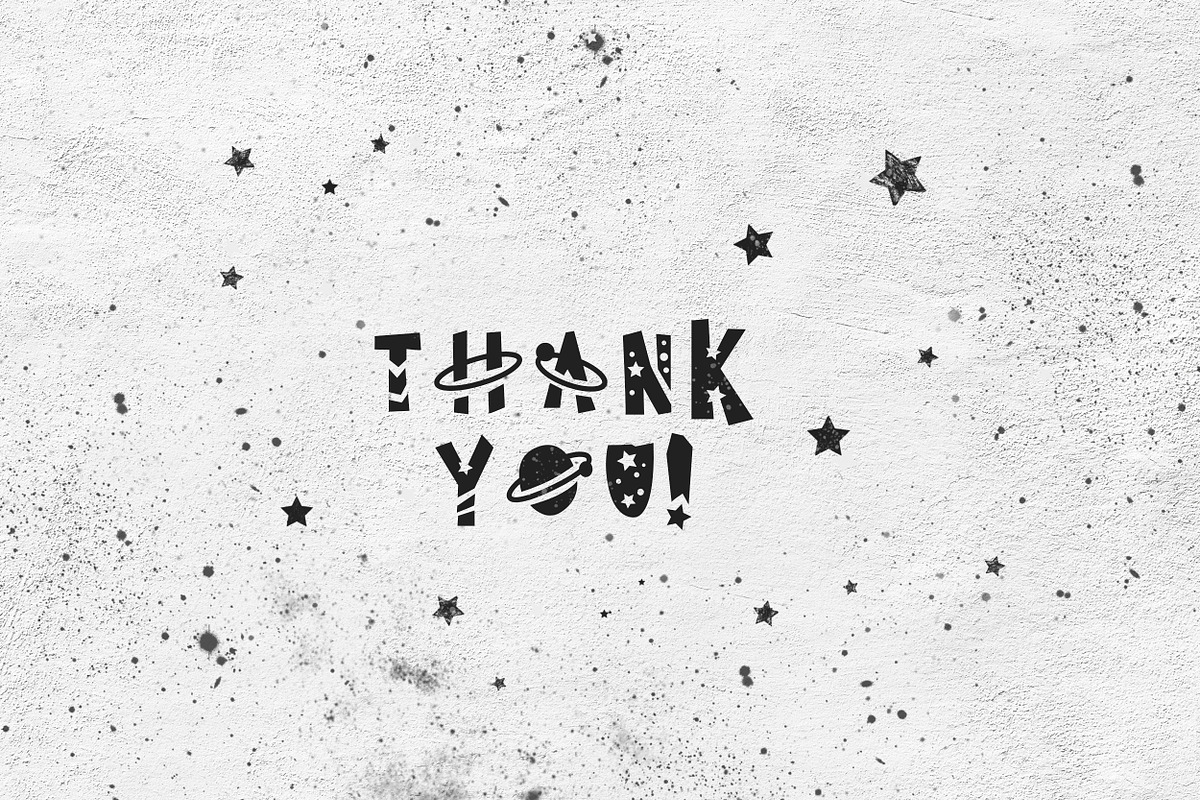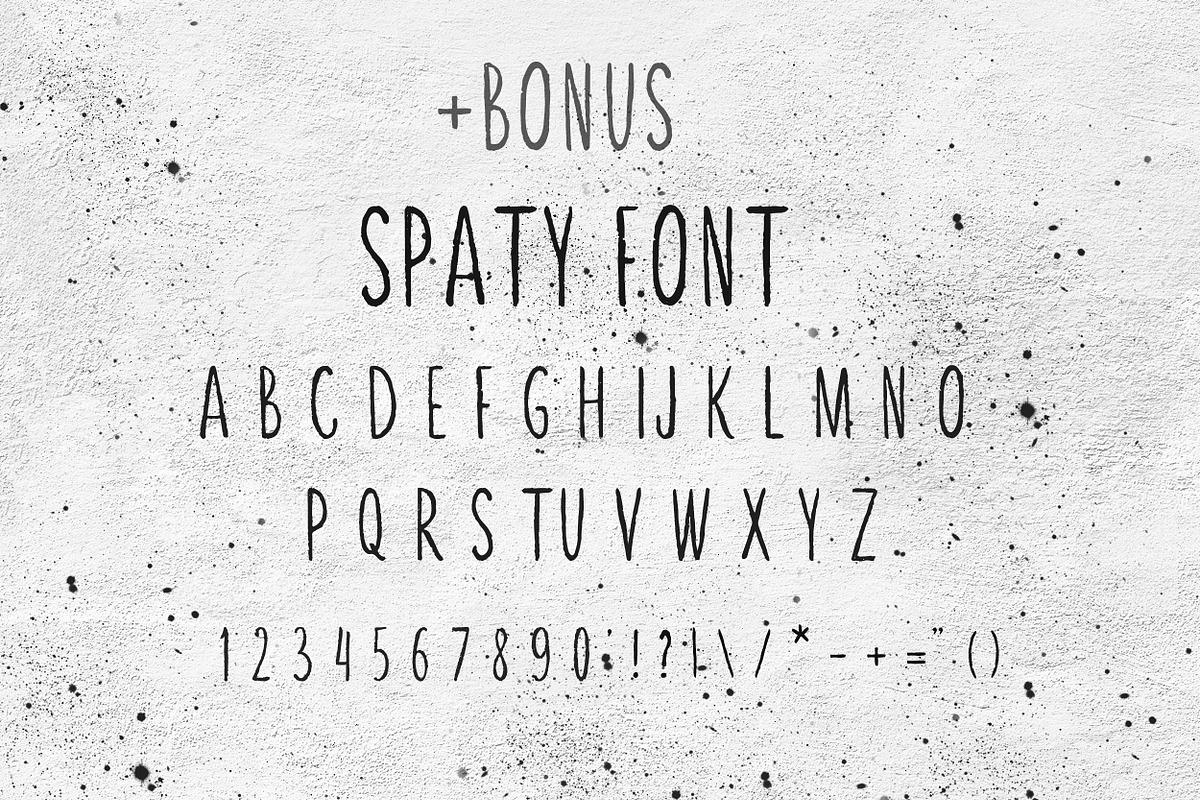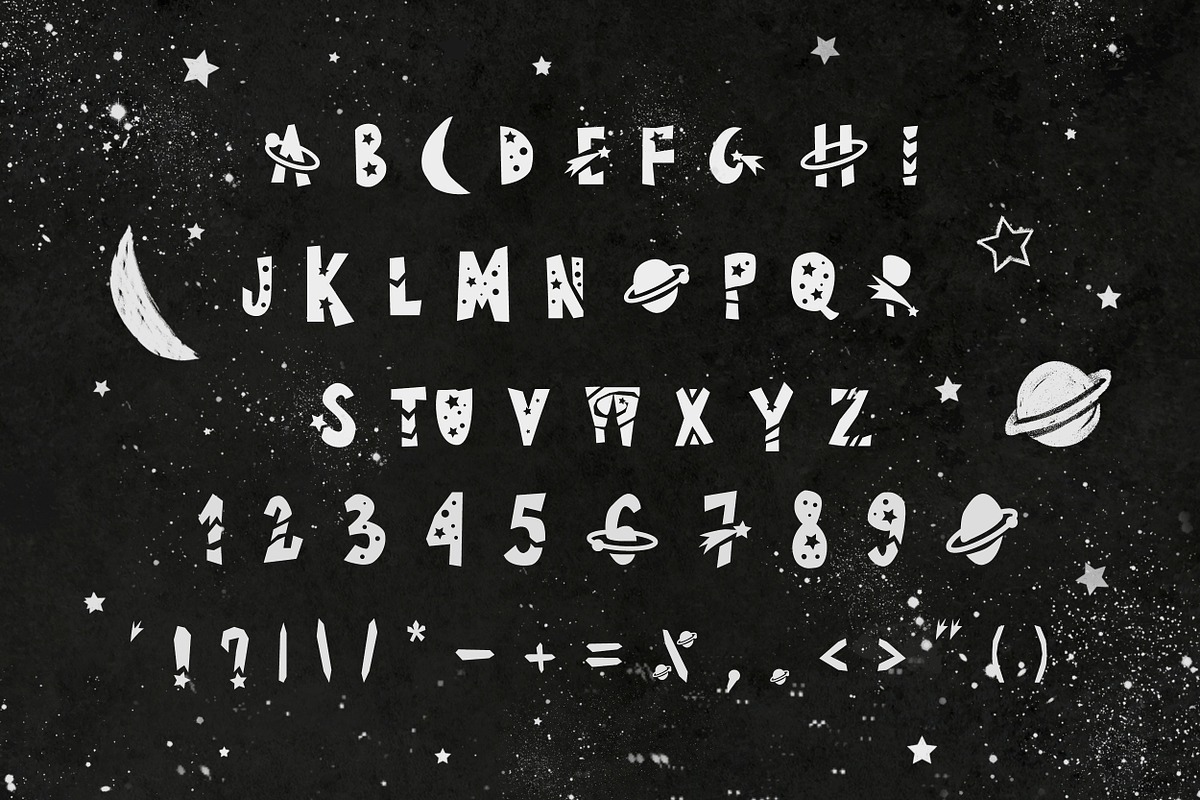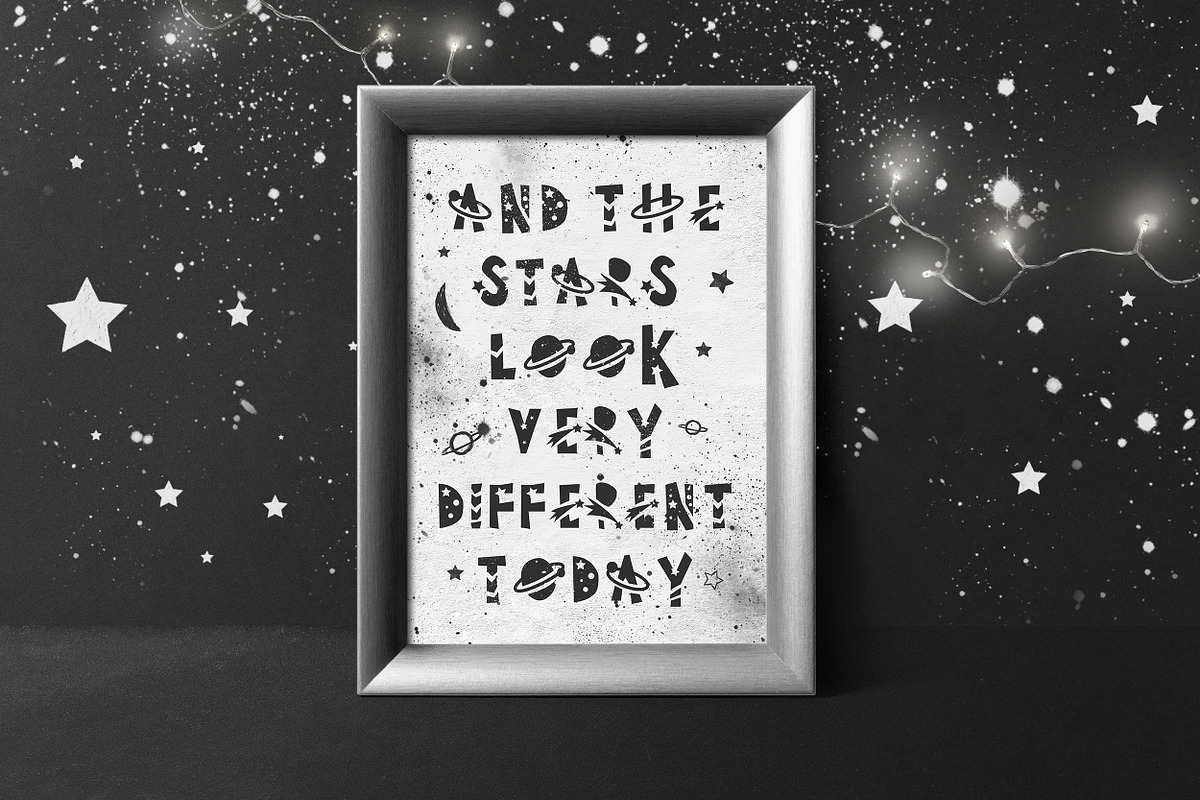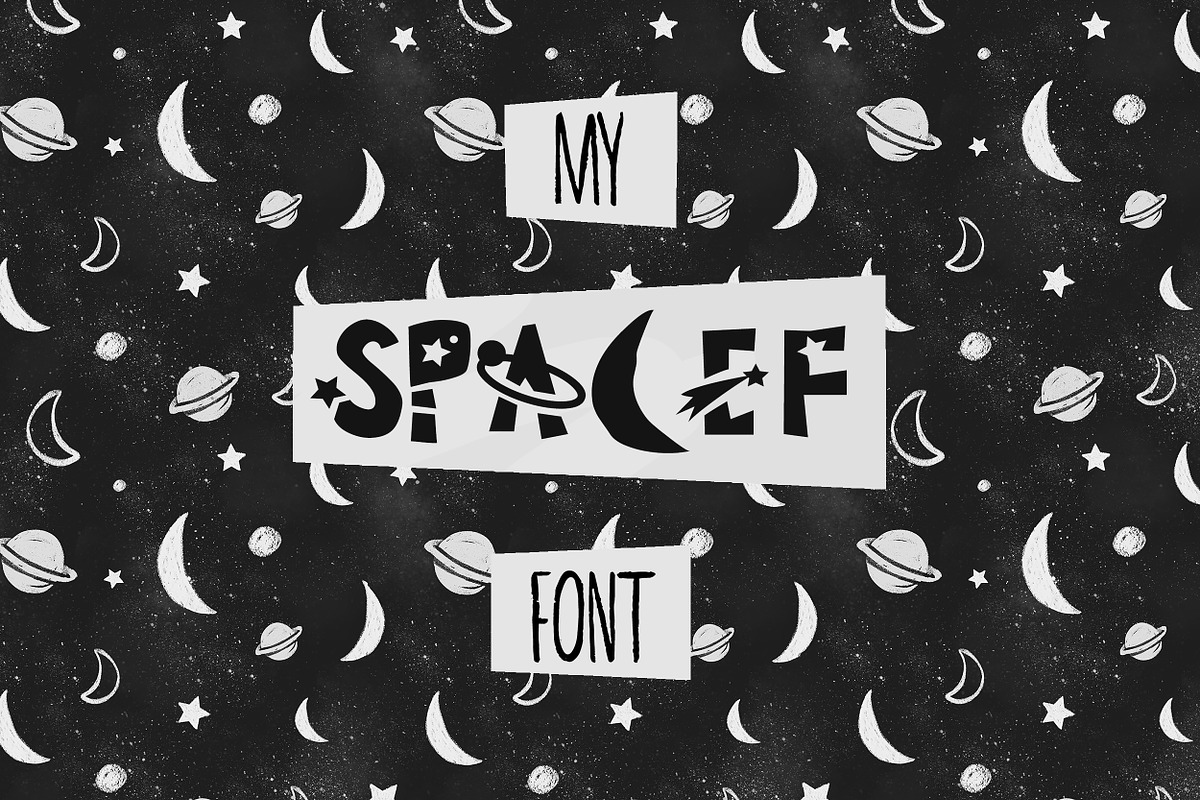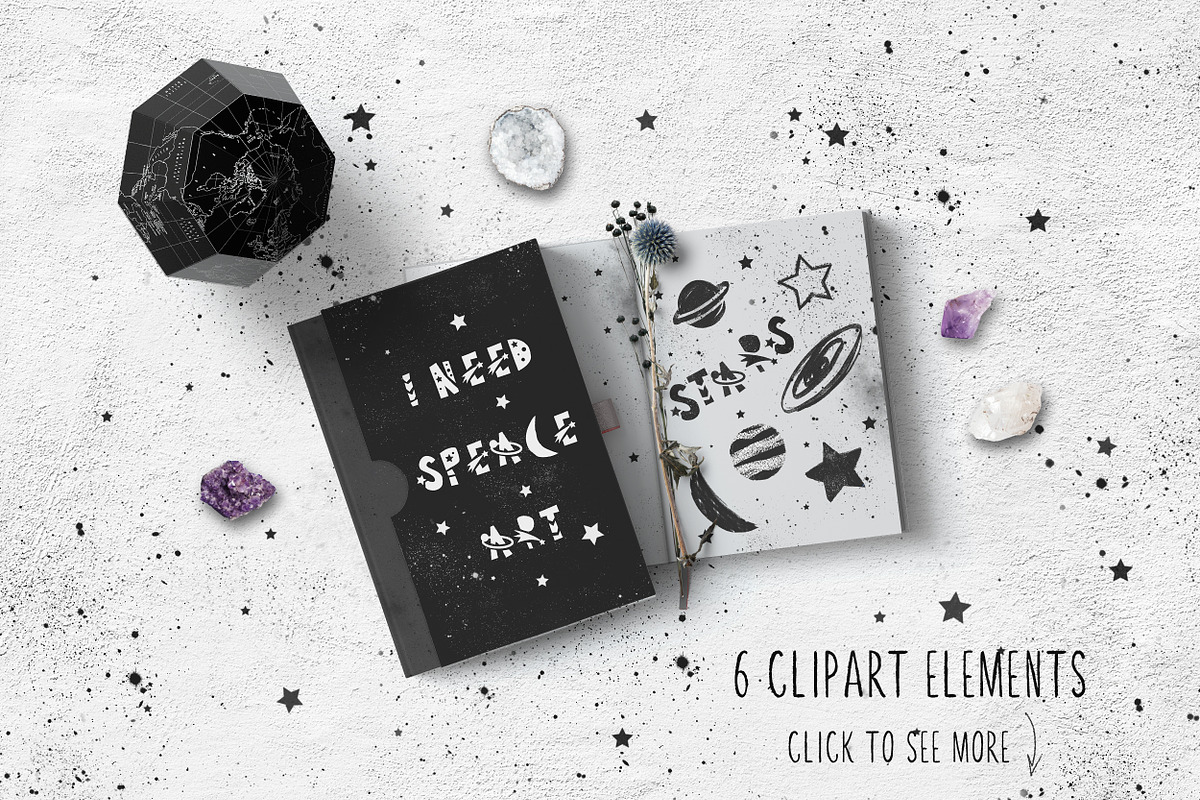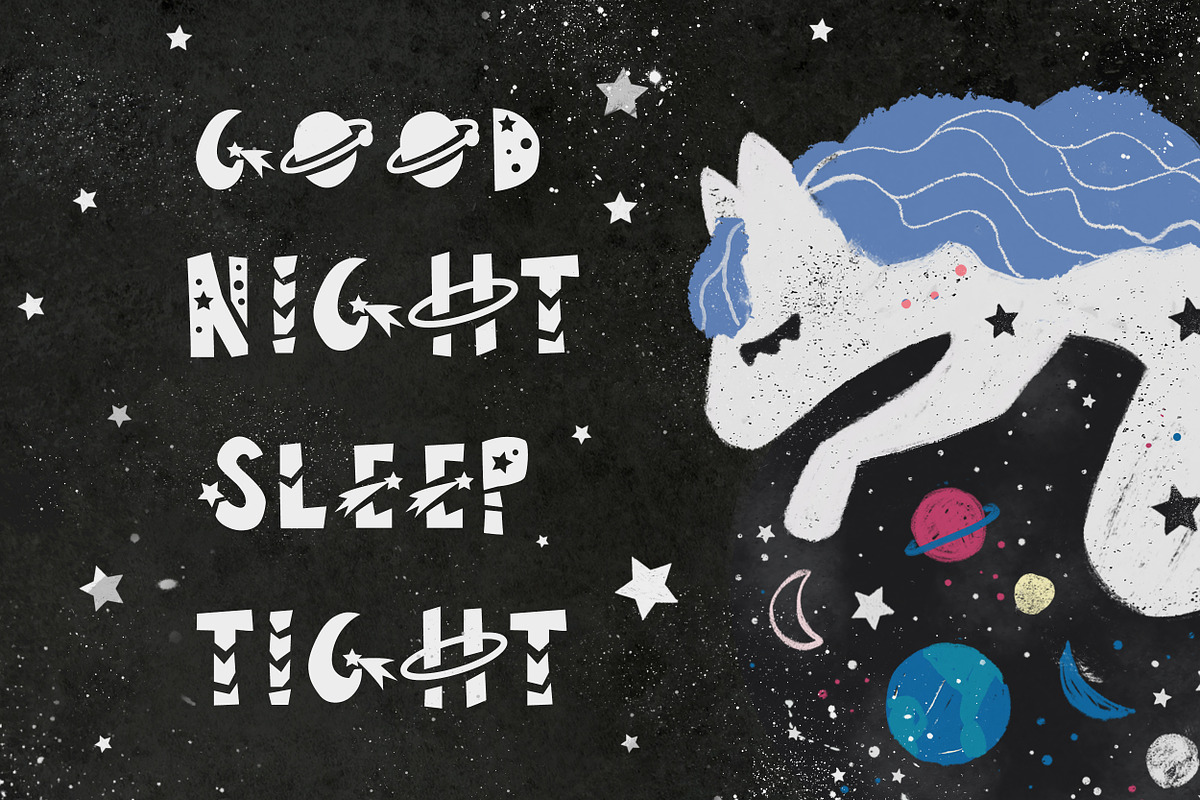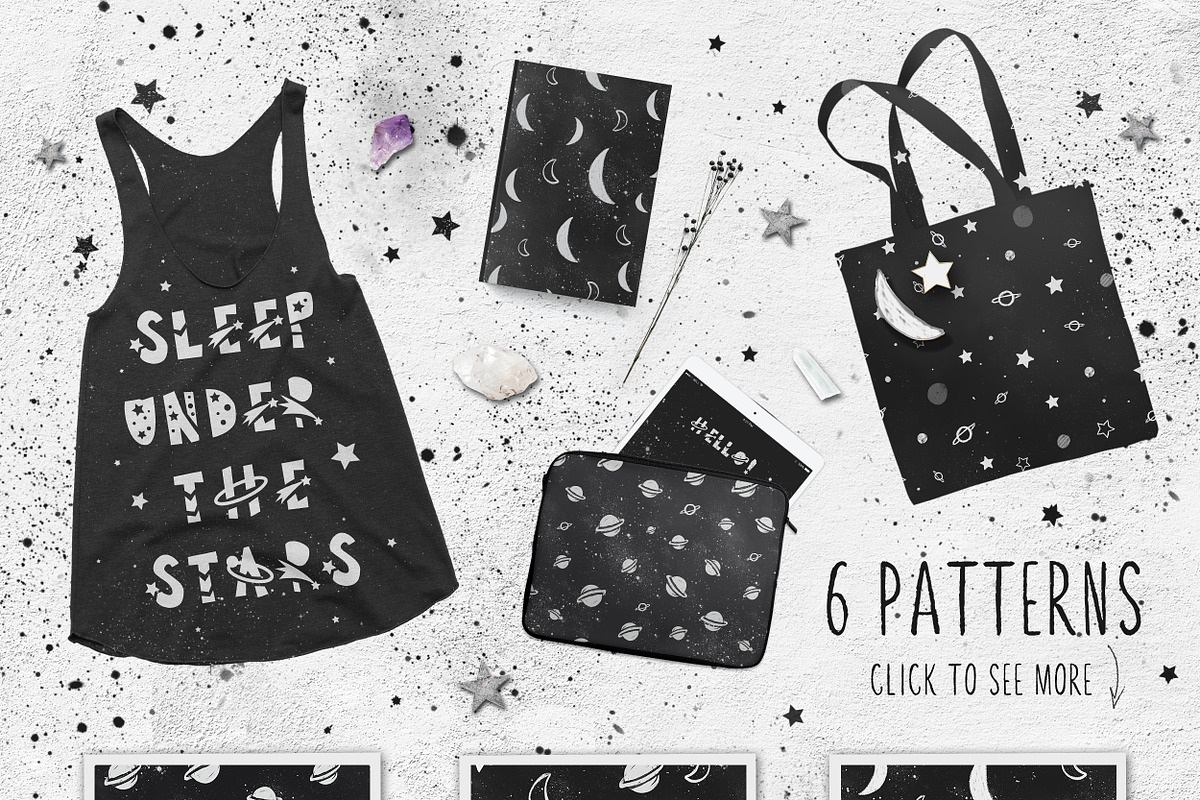
Spacef Font + Bonus: Font & Patterns
Hello! I'm happy to show you my cosmic font. The idea of creating such font arose when I worked on my cosmic patterns.
The final product includes Spacef font and patterns with the Moon and planets. Space elements. And BONUS - Spaty font.
Fonts don't have all the symbols.